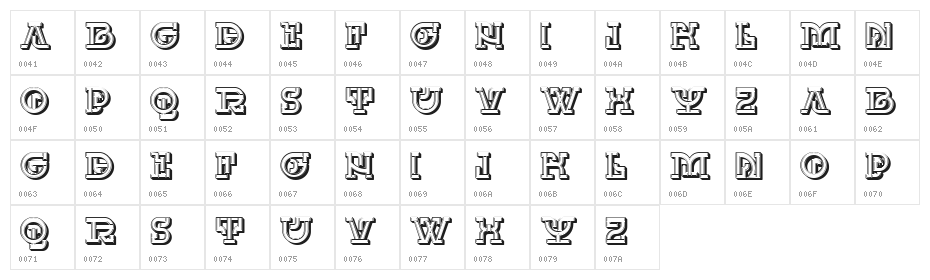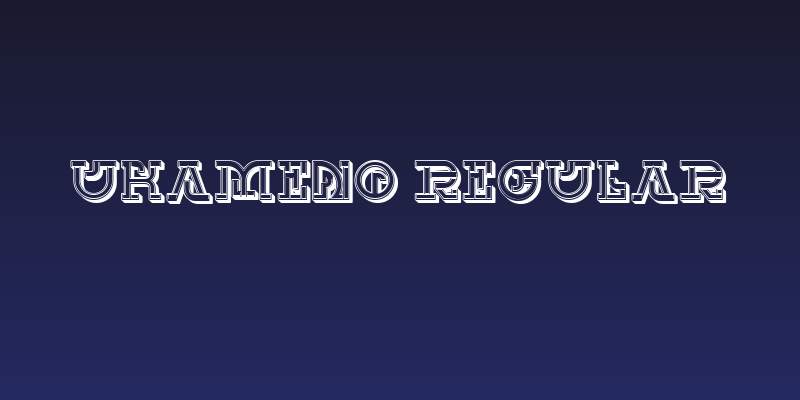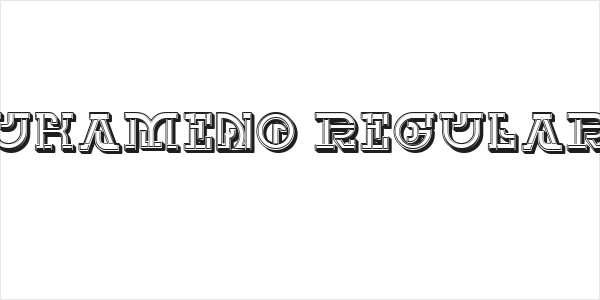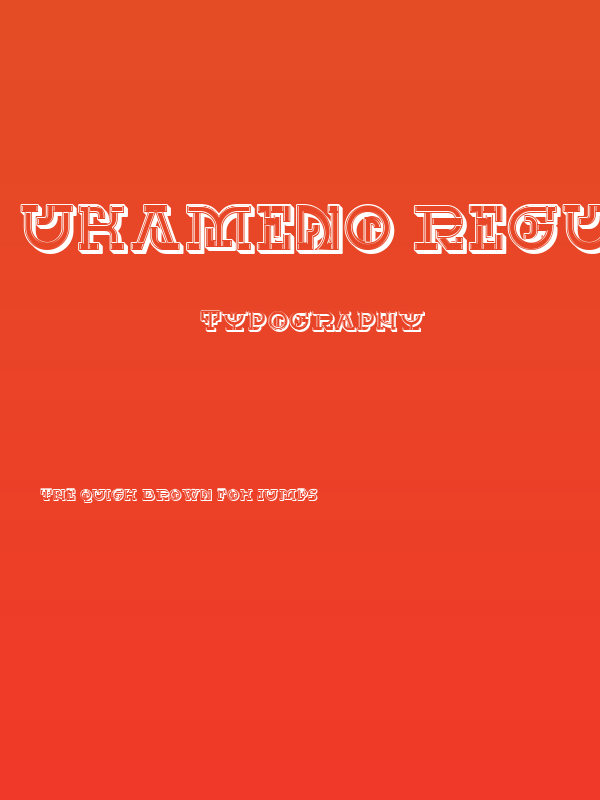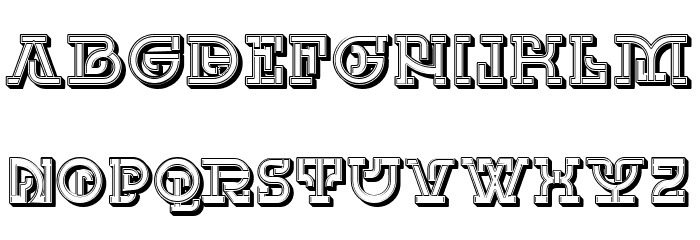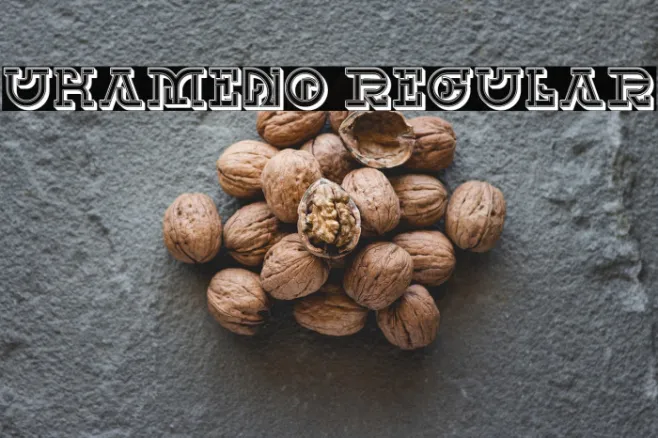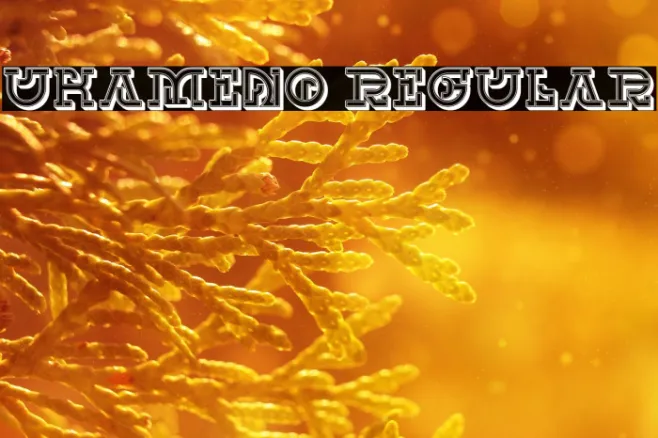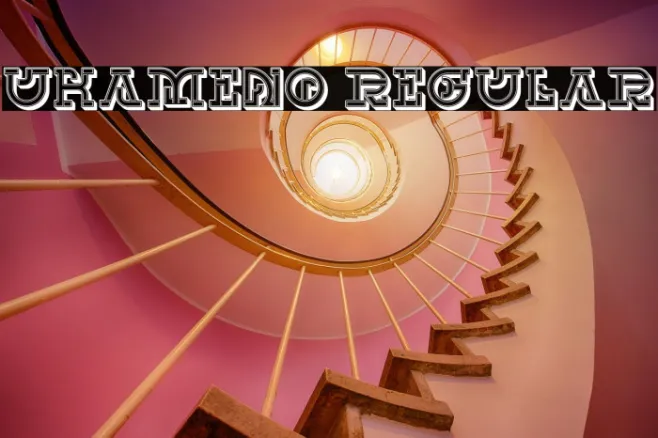
UKAMENO Regular Font
UKAMENO Regular Description
This font features a bold, decorative style with intricate detailing and a three-dimensional appearance. The letters are outlined with multiple layers, creating a shadow effect that adds depth and complexity. The geometric shapes and sharp angles give it a modern yet vintage feel, reminiscent of art deco design. Each character is distinct, with unique embellishments that enhance its visual appeal. The font's structure is consistent across uppercase letters, providing a cohesive look that is both striking and memorable.